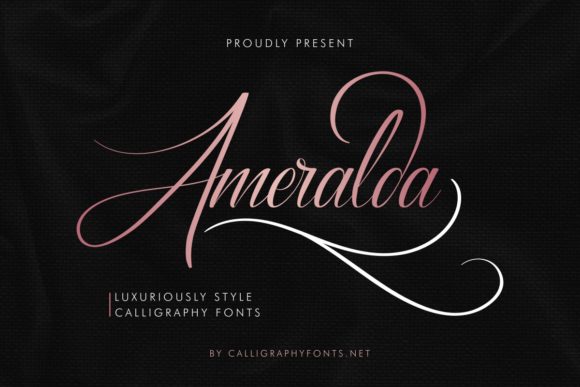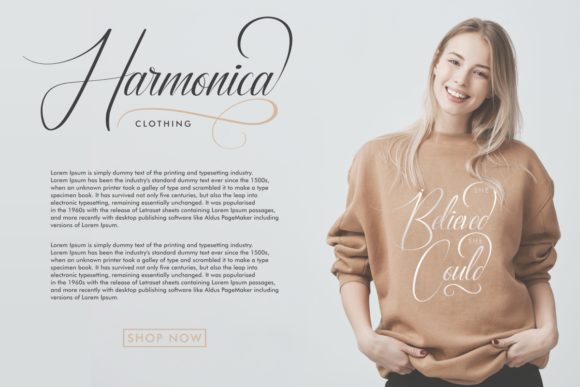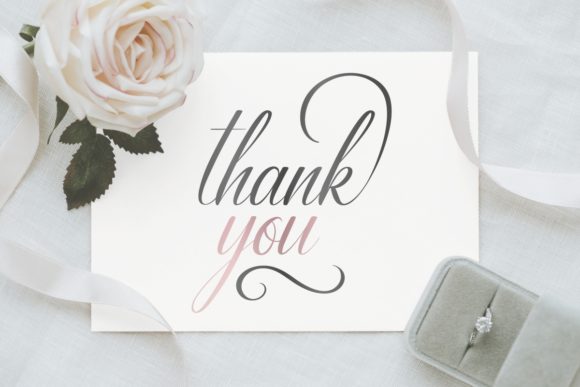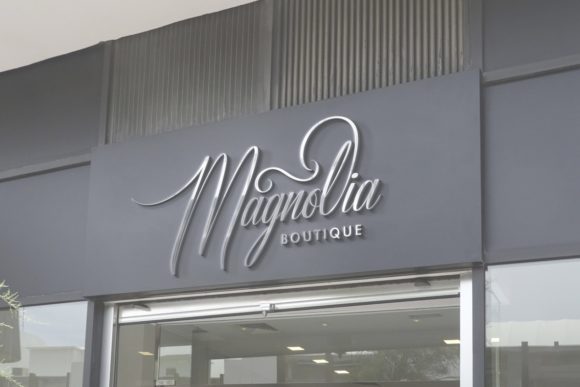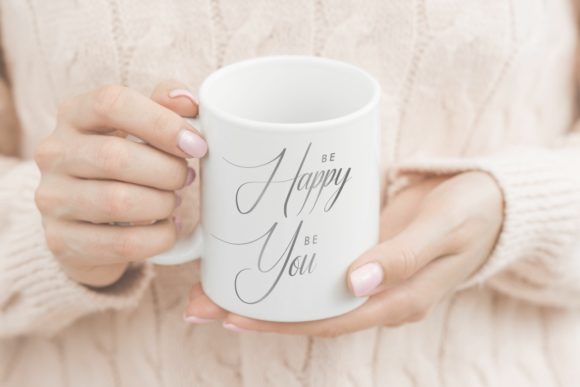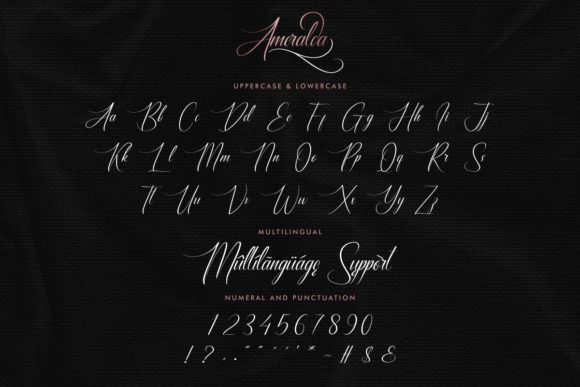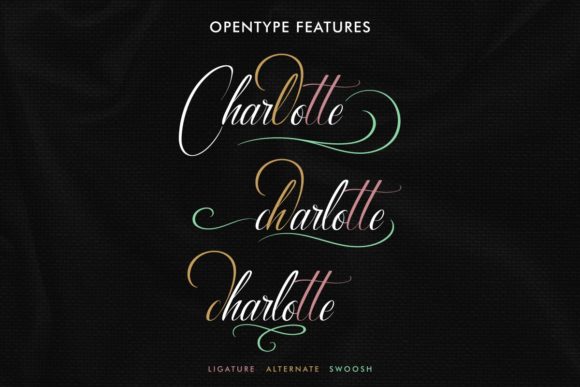
Ameralda Font
About Ameralda Font
Ameralda feels incredibly elegant and stylish. It looks beautiful on invitations, cards, quotes, greeting cards, logos, business cards and so many other design ideas. It features a varying baseline, smooth lines, gorgeous glyphs and stunning alternates.